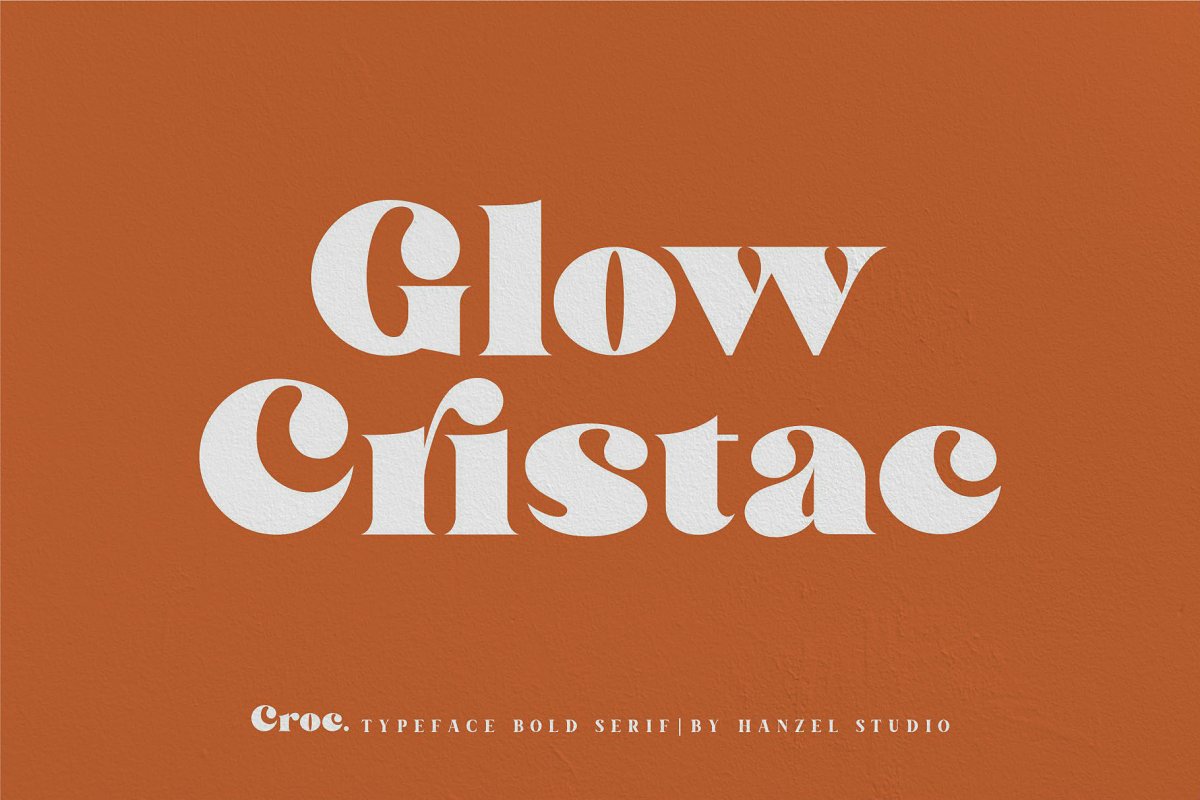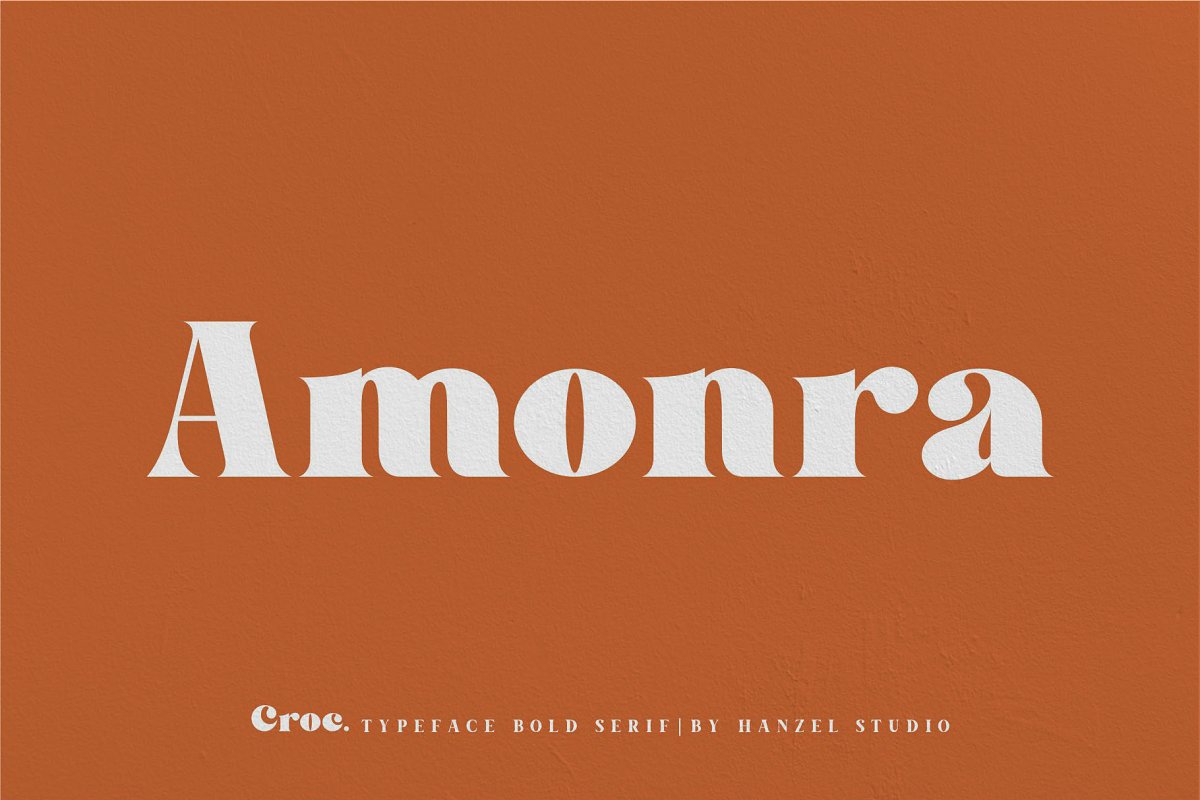
About the Croc Typeface Bold Serif Font
Croc, is a wedge serif font that is sure to stand out! A little bit retro and a bit modern, Croc, is great for logos, editorial or web design, The unique sharp serifs mixed with thin strokes give off a bold mid century architectural vibe, This modern serif typeface features serifs, Perfect for gorgeous logos & titles, The Croc will pair beautifully with many fonts and work well with whatever project you’re working on